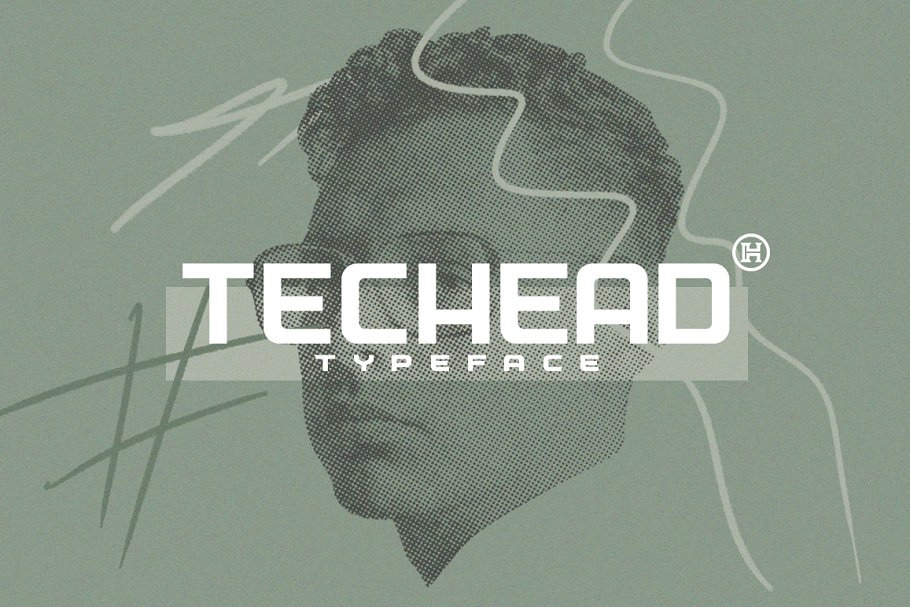
Techead Font
This technological typeface is perfect for tech startups, software companies, digital agencies, cybersecurity firms, innovation hubs, electronics brands, gaming platforms, AI companies, and cutting-edge technology design applications.
What makes this font exciting is its technological precision combined with digital innovation, offering designers a futuristic typeface that captures the essence of advanced technology while delivering cyber-sophisticated functionality and next-generation visual excellence.
The Techead font family includes light, regular, medium, bold, black, and digital variations, providing complete technological design solutions for creating innovative tech visual identities.
Whether you're developing cutting-edge technology brands or crafting digital innovation experiences, Techead Font Free Download brings exceptional technological atmosphere and digital authenticity to every application. This futuristic typeface combines advanced typography with contemporary tech design, creating letterforms that inspire innovation and celebrate technological advancement. The font's digital construction and tech-ready details make it perfect for brands seeking immediate technological recognition.
Techead Font features carefully engineered technological styling with authentic digital character that conveys genuine tech expertise. Each character has been designed with precise proportions and futuristic elements that enhance the innovative aesthetic. The font's technological qualities make it particularly effective for software companies and digital applications.
Professional designers choose Techead Font for projects requiring authentic technological credibility and digital atmosphere. Its innovation heritage makes it exceptionally well-suited for tech companies, software platforms, and digital lifestyle brands. The font's versatile technological variations allow designers to control the digital intensity, from subtle tech elegance to full innovation celebration.
The complete Techead Font package offers extensive technological ornaments and digital decorative elements that enhance the innovative aesthetic. Advanced cyber features allow designers to create complex technological effects with multiple innovation-inspired options. This comprehensive tech toolkit ensures designers have everything needed to create authentic technological communications that celebrate the boundless possibilities of digital innovation and advanced technology excellence.